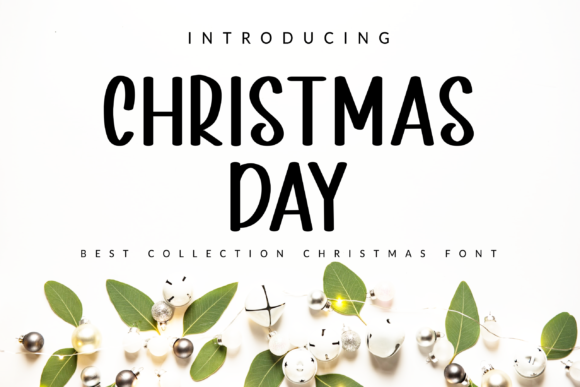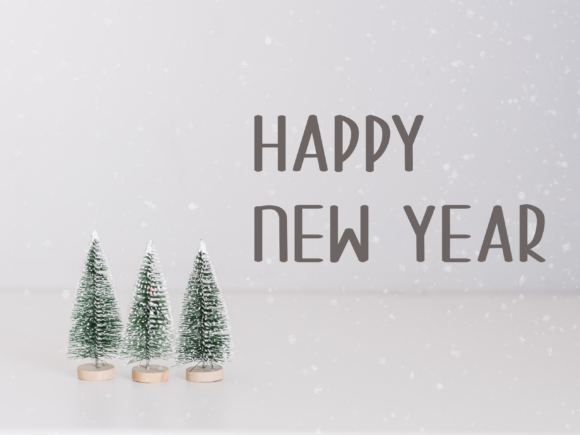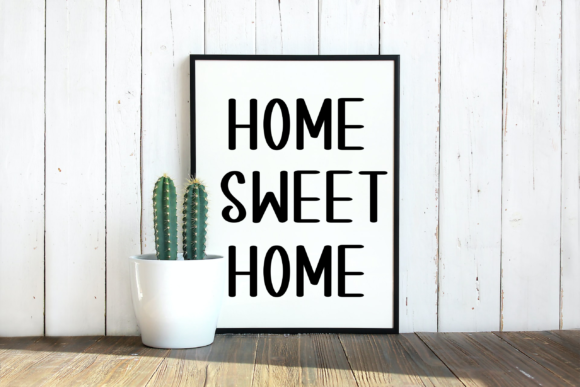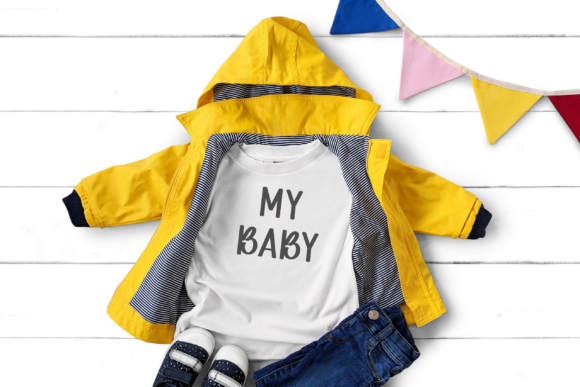
Christmas Day Font
About Christmas Day Font
Christmas Day is a cute and beautiful handwritten font. This unique and joyful font will effortlessly turn any design project into a stand out!